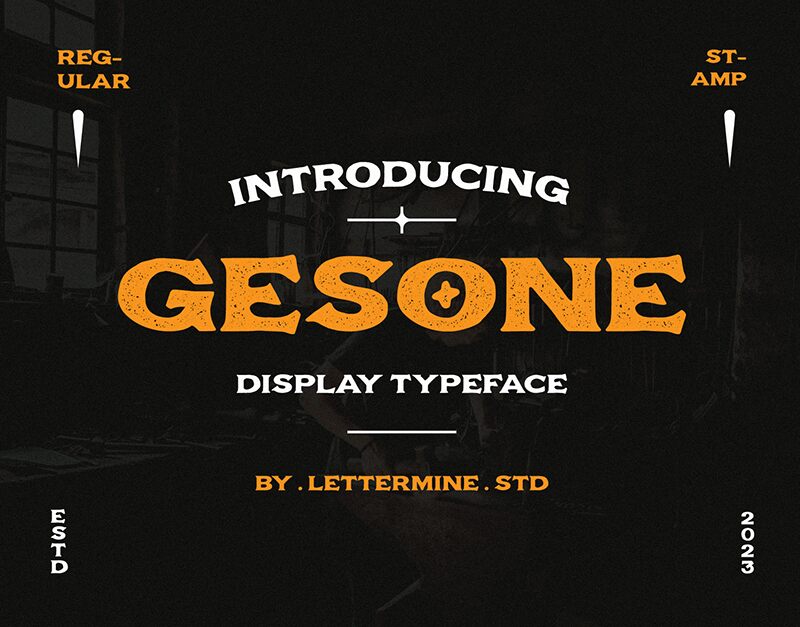
Gesone Font Stamp
Gesone Font Stamp font by Dedi Setiyawan is a bold, retro, eroded display font with an expanded width. The vintage aesthetic is achieved through a rugged elegance of this textured typeface whose bold and strong presence immediately grabs the eye. A certain historical influence can also be seen which goes hand in hand with its visual masterfulness.